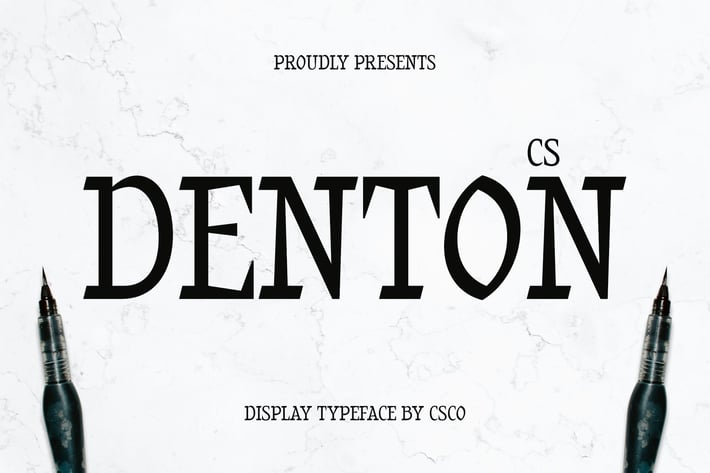
Denton – Flat Brush Font
CS Denton – Flat Brush Font: Bold Strokes with Artistic Energy
Expressive Display Font with a Flat Brush Style
CS Denton is a dynamic display font that captures the natural motion of a flat brush stroke. Designed with bold, even strokes, this font mimics the fluidity and texture of real brush lettering, creating a powerful and energetic visual impact. The contrast between thick and thin lines adds a sense of movement, making it ideal for designs that demand boldness and artistic expression.
Authentic Brush Texture for a Natural Feel
With its raw, hand-drawn texture, CS Denton brings a casual yet refined look to any project. The organic edges and slightly irregular forms enhance its handcrafted aesthetic, making it perfect for creative branding, poster designs, and packaging that require a lively, expressive touch. The brush detail adds depth and personality, giving designs a unique, artistic feel.
Perfect for Bold and Impactful Designs
CS Denton thrives in high-visibility applications, such as advertising, product labels, and social media content. Its strong, attention-grabbing design ensures that headlines, logos, and marketing materials stand out with a sense of confidence and artistic flair. Whether used for street-style branding, food packaging, or vibrant digital graphics, this font adds a distinctive and energetic character to any composition.